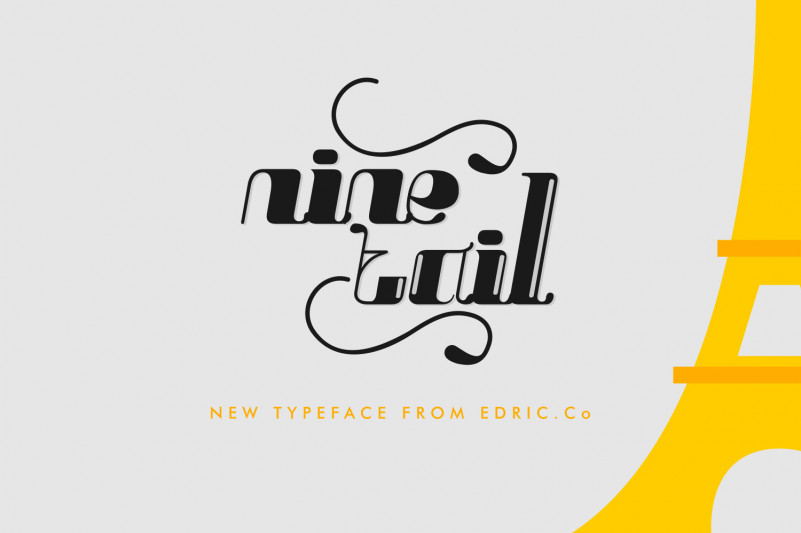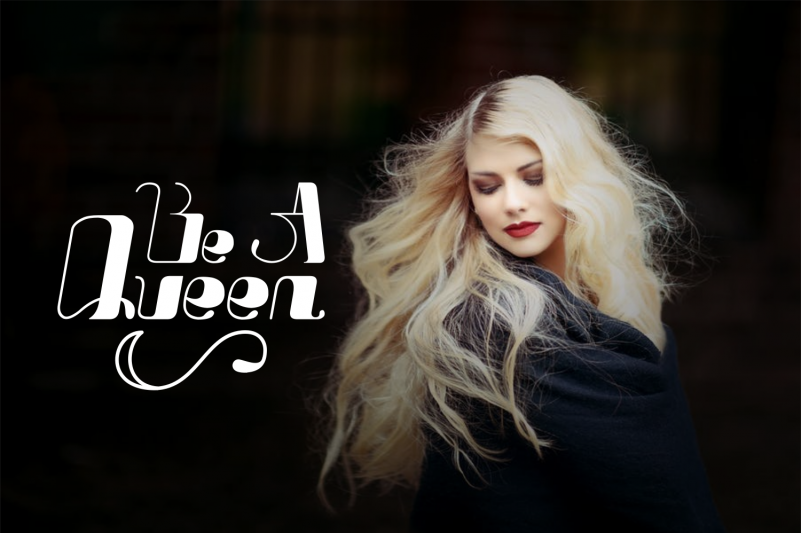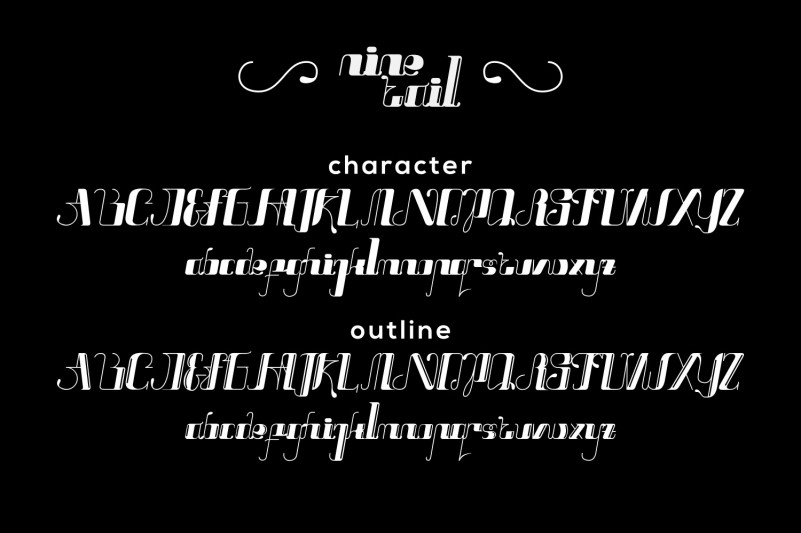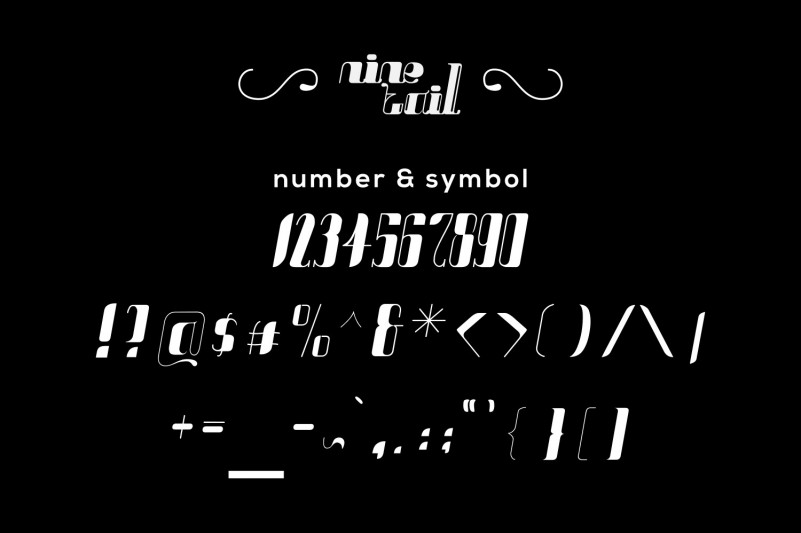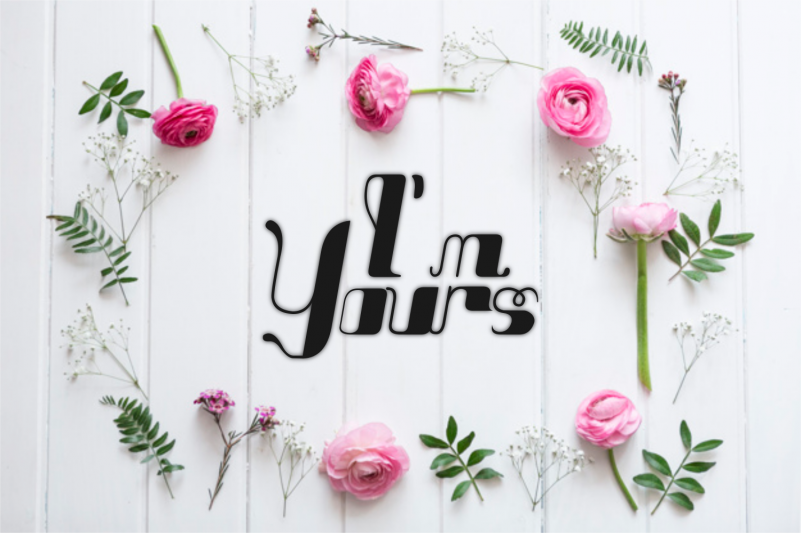
NineTails Typeface
What’s up guys?! Introducing NineTails a hand lettering script calligraphy font. Inspired by Indonesian local ancient. Ninetails is a handwritten font, it has 2 styles: Regular and inline.
This font will be great for custom brands, headlines, invitation, wedding, salon, skin care, doctor, Makeup artist, organizer, cafe, photography etc